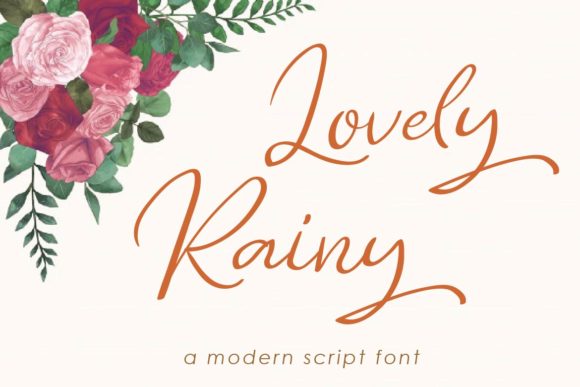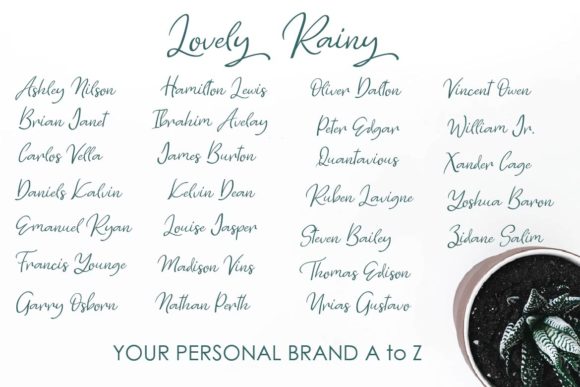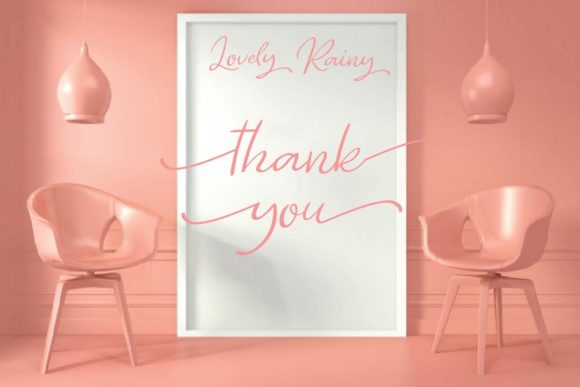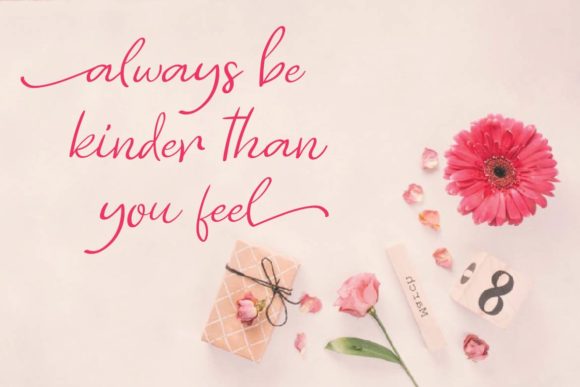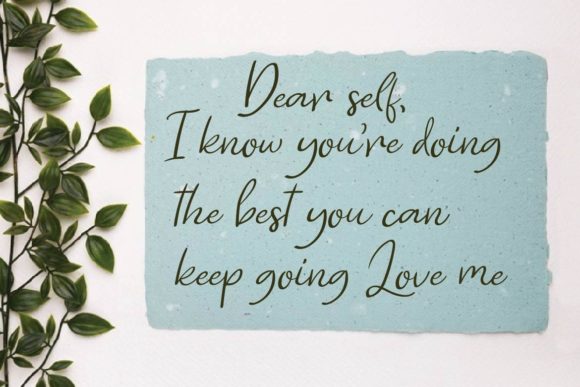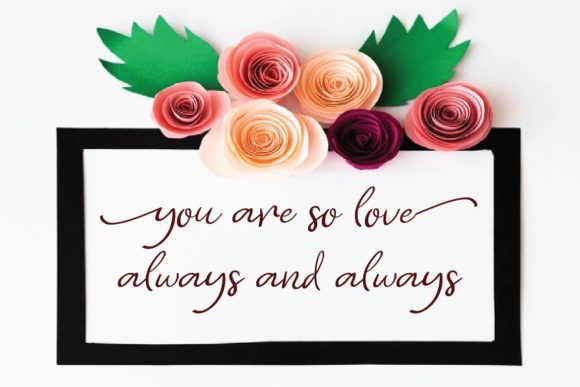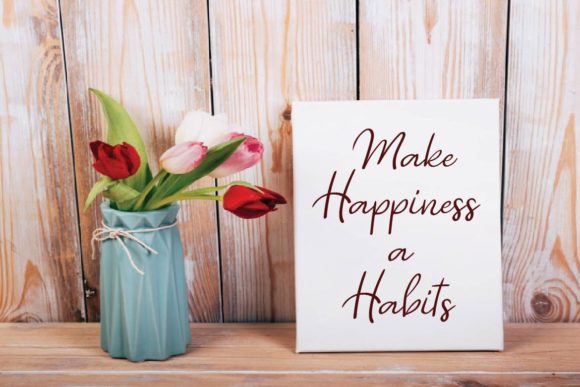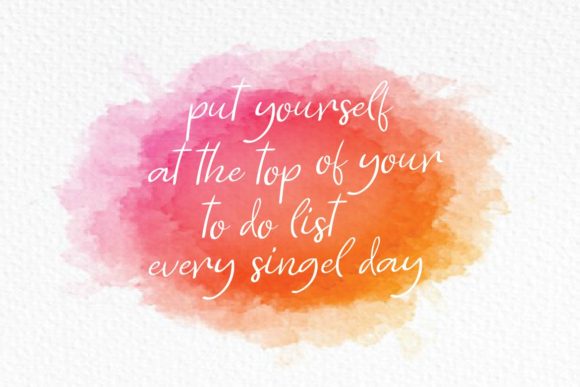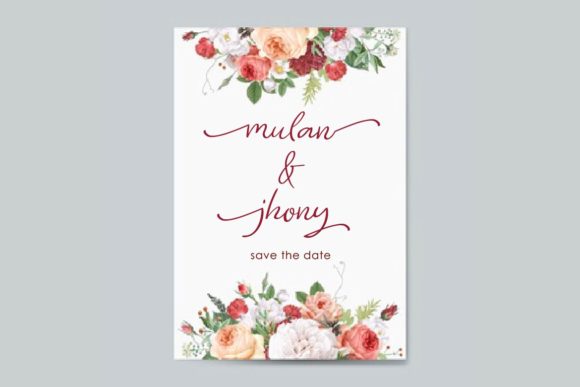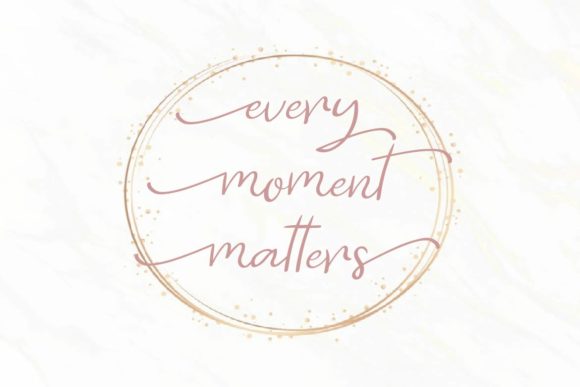
Lovely Rainy Font
About Lovely Rainy Font
Lovely Rainy is inspired by classic typography and brings its own unique style to any design project. It features gorgeous swashes and ligatures that make this script incredibly versatile. This cute font is the perfect fit for all of your logos, branding, social media, and crafty DIY projects.